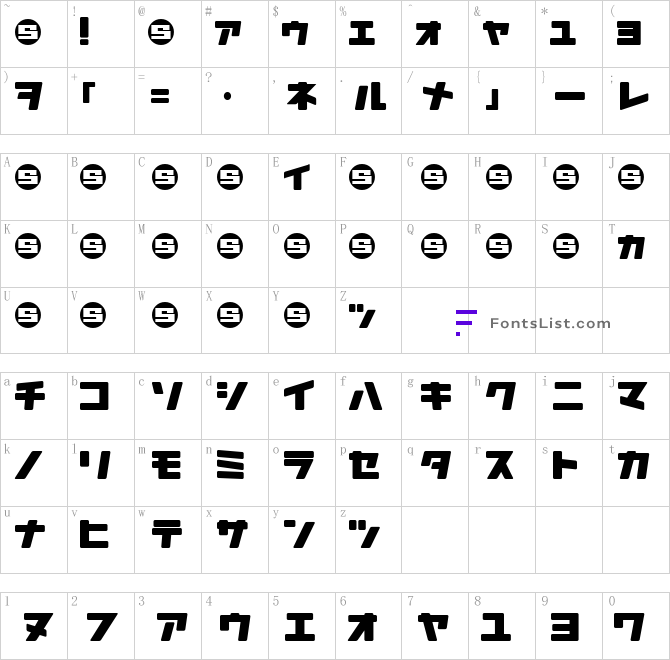
- Font Name:Daidoh Remix RoundJka
Daidoh-Remix-RoundJka.ttf is a very beautiful artistic font, Daidoh-Remix-RoundJka.ttf is widely used in the design and printing of various books and pictures,Daidoh-Remix-RoundJka.ttf has a strong visual impact,Daidoh-Remix-RoundJka.ttf is a commonly used font in newspapers, magazines and books, and is used in posters, e-commerce Poster design, store design, logo design, font design and other fields.Daidoh-Remix-RoundJka.